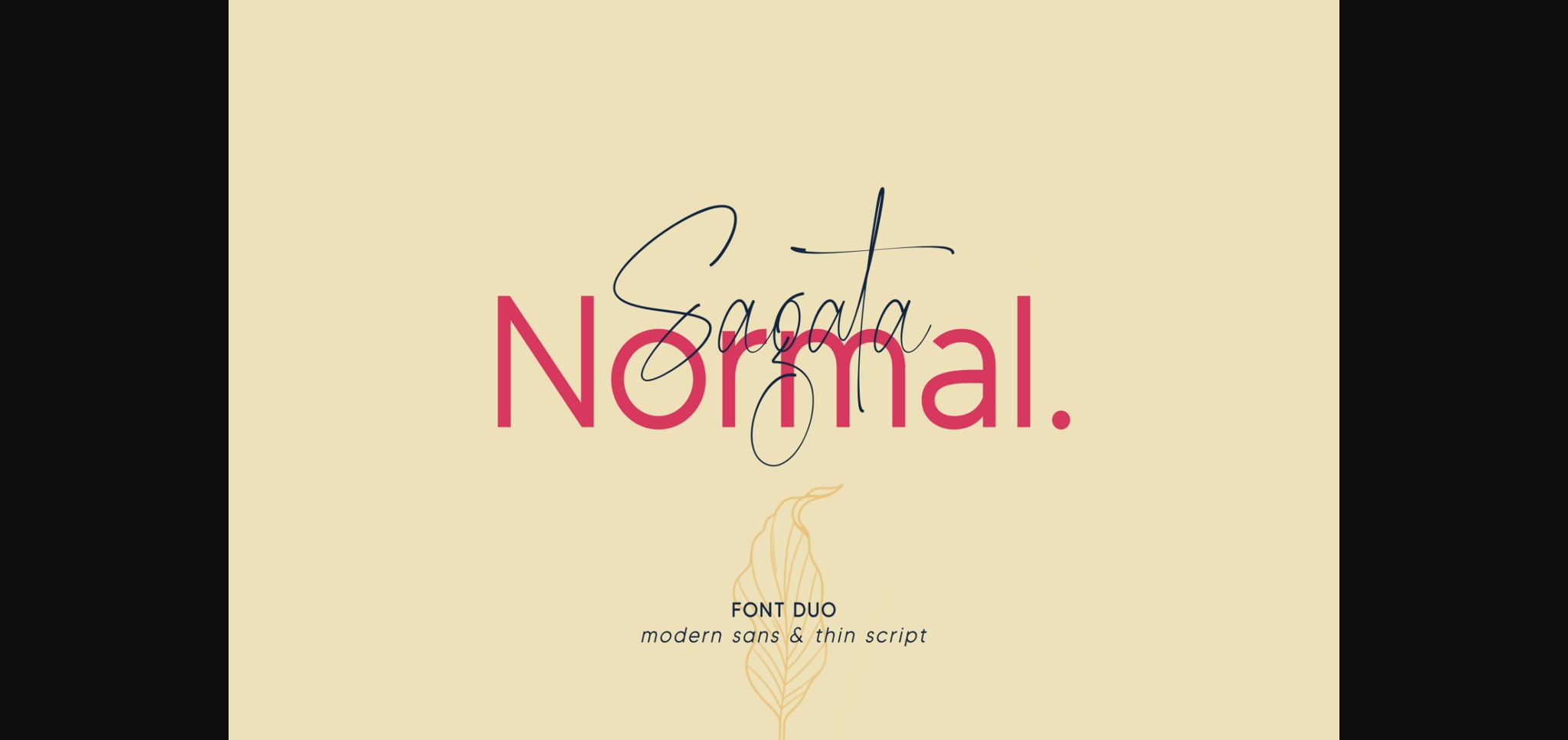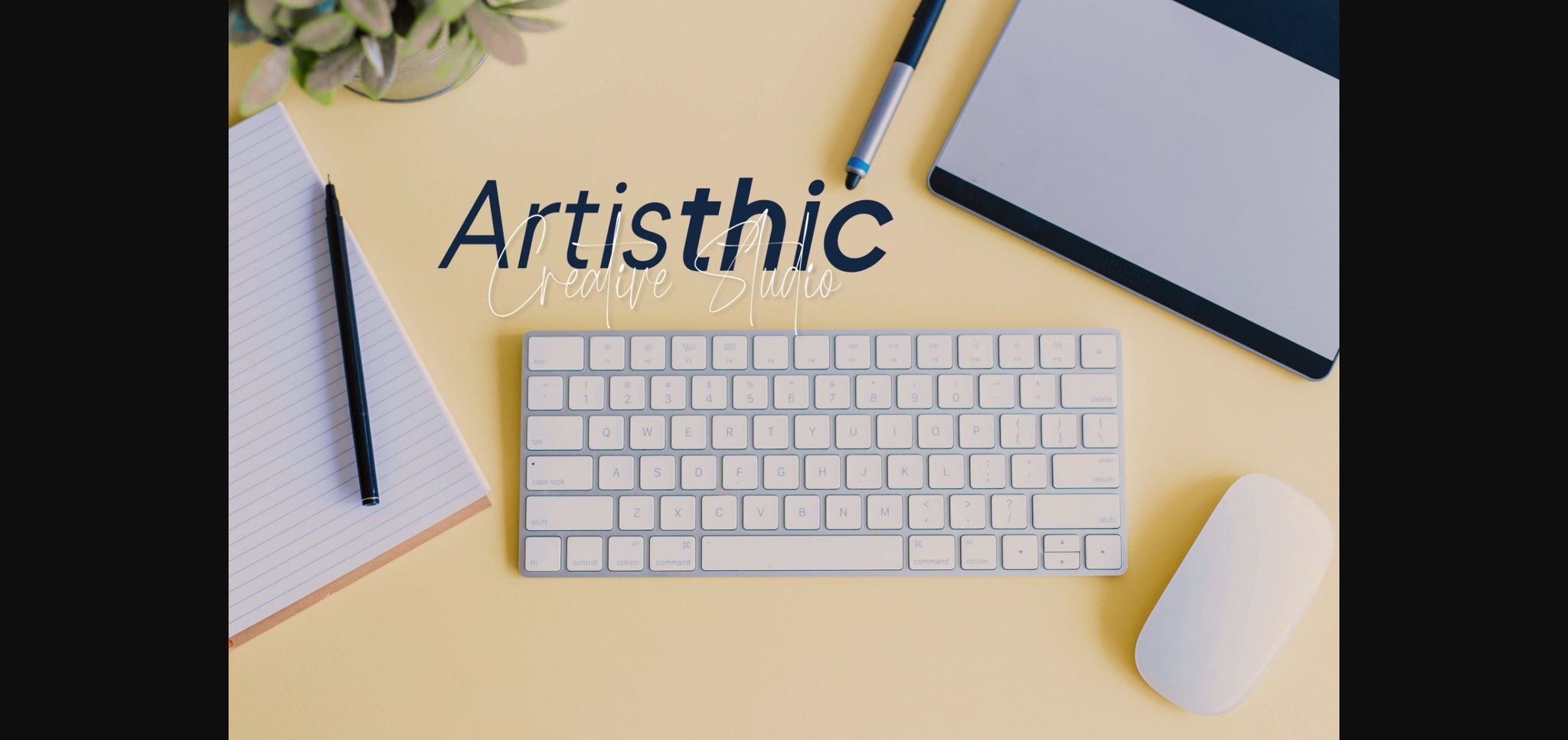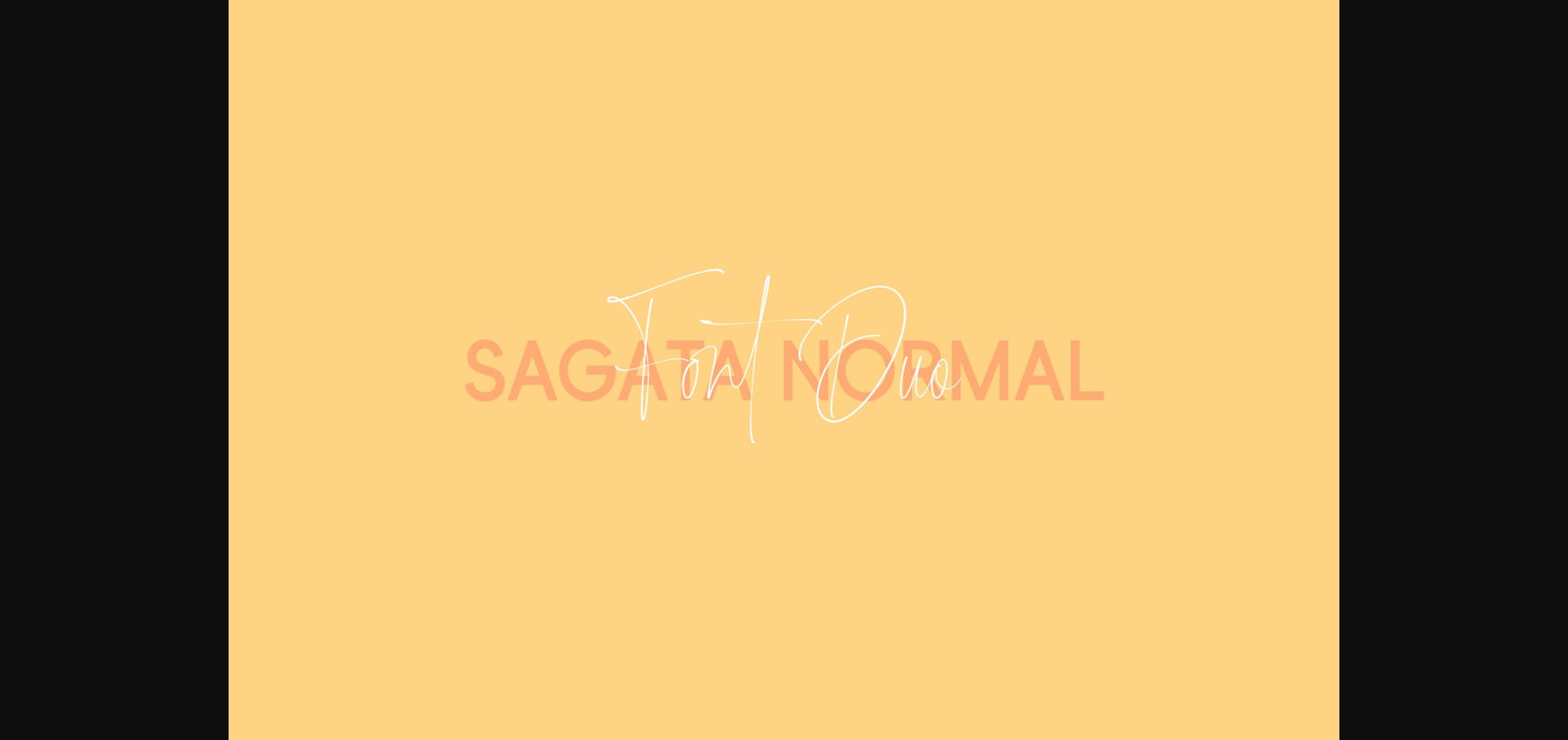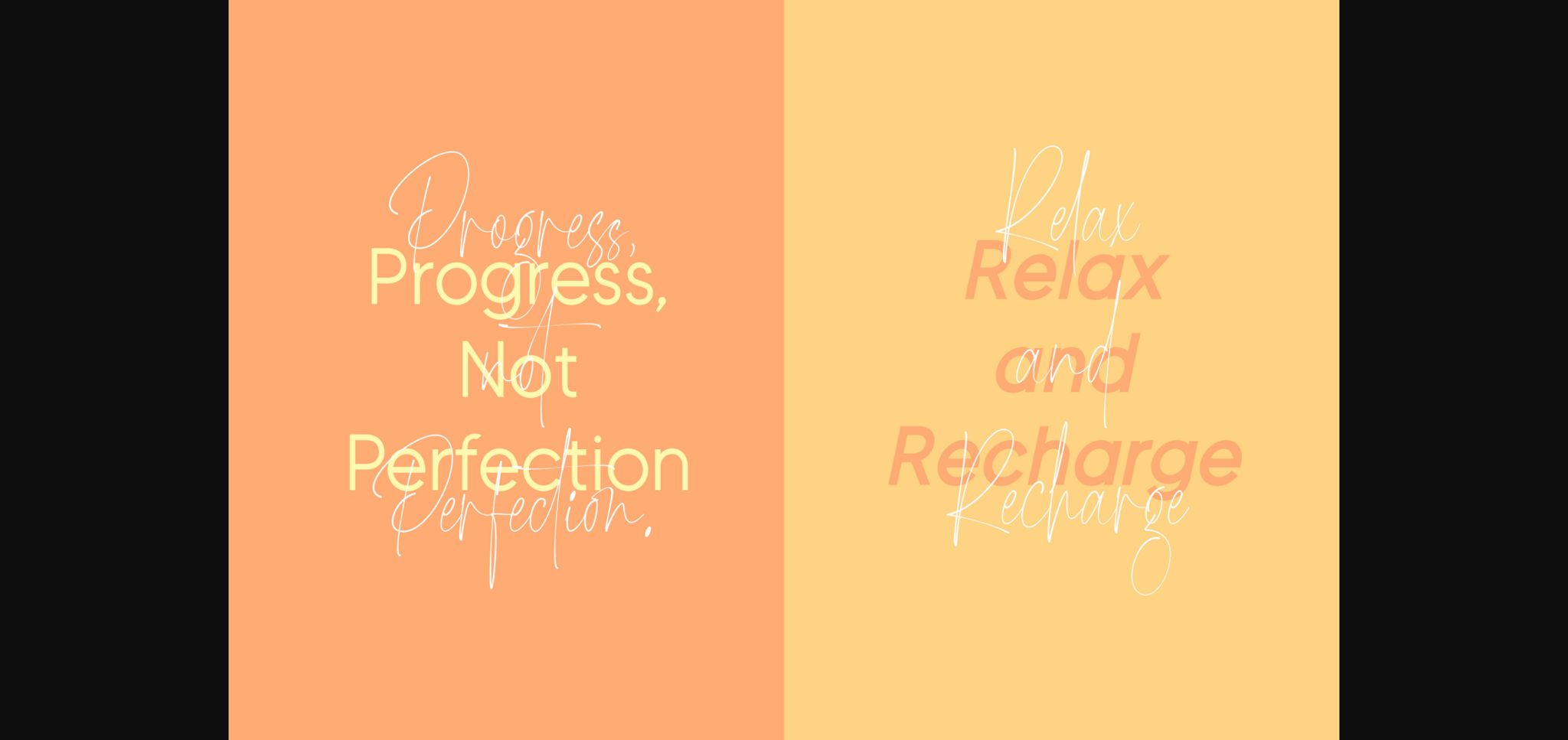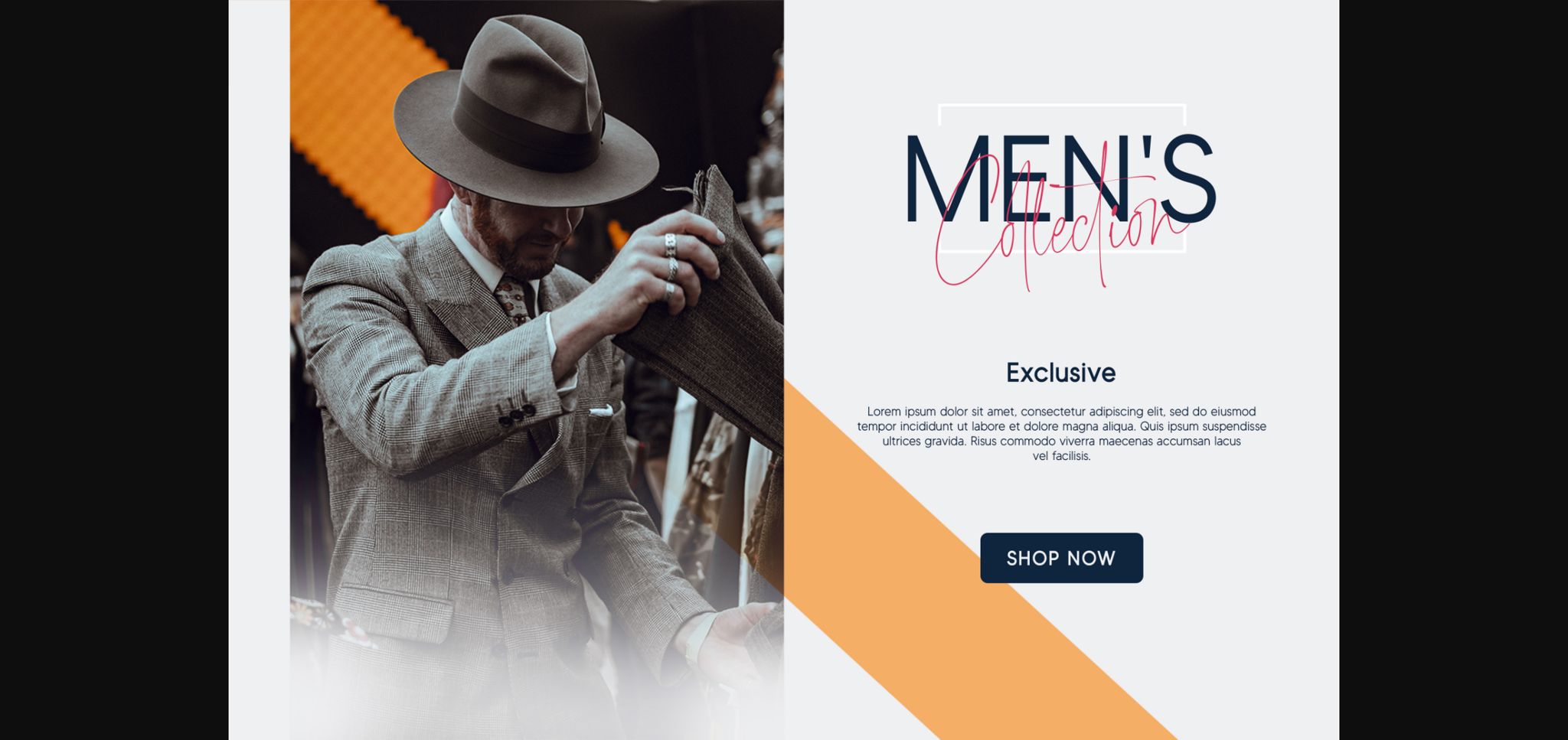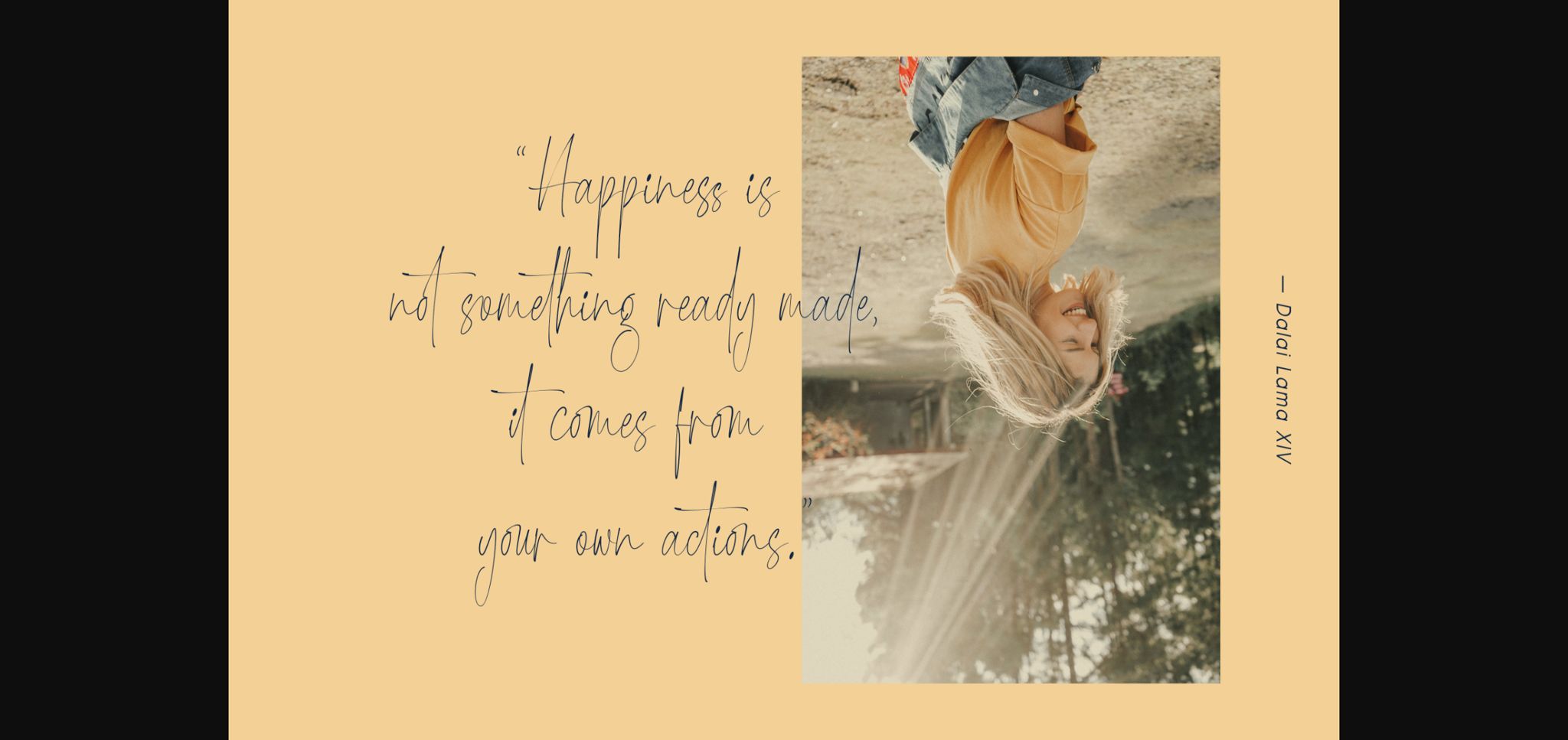
Sagata Normal Font
About Sagata Normal Font
Sagata Normal is a spectacular duo font (sans serif and script font). Incredibly versatile, this font fits a wide pool of designs, elevating them to the highest levels. Add this font to your favorite creative ideas and notice how it makes them come alive!